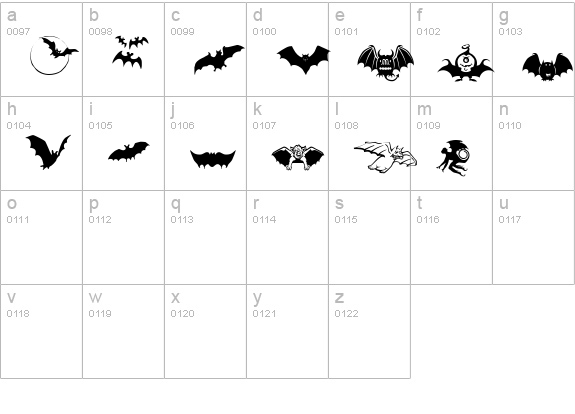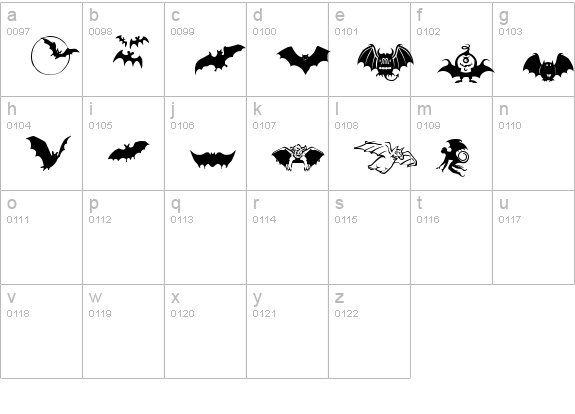
Bats-Symbols font is a unique and versatile typeface that features a wide range of symbols and icons inspired by bats. This font is perfect for adding a touch of mystery and intrigue to your projects, whether you're designing a spooky Halloween poster or creating a dark and edgy logo. With its intricate details and intricate designs, Bats-Symbols font is sure to make a bold statement in any design. The best part about Bats-Symbols font is that it is completely free to download at FontsMarket.com. This means you can easily access this eye-catching font and start using it in your projects right away. Whether you're a professional designer looking for a new tool to add to your collection or a hobbyist looking to spice up your creative projects, Bats-Symbols font is a fantastic choice that won't cost you a penny. Download it today and let your creativity soar with this captivating and mysterious font.